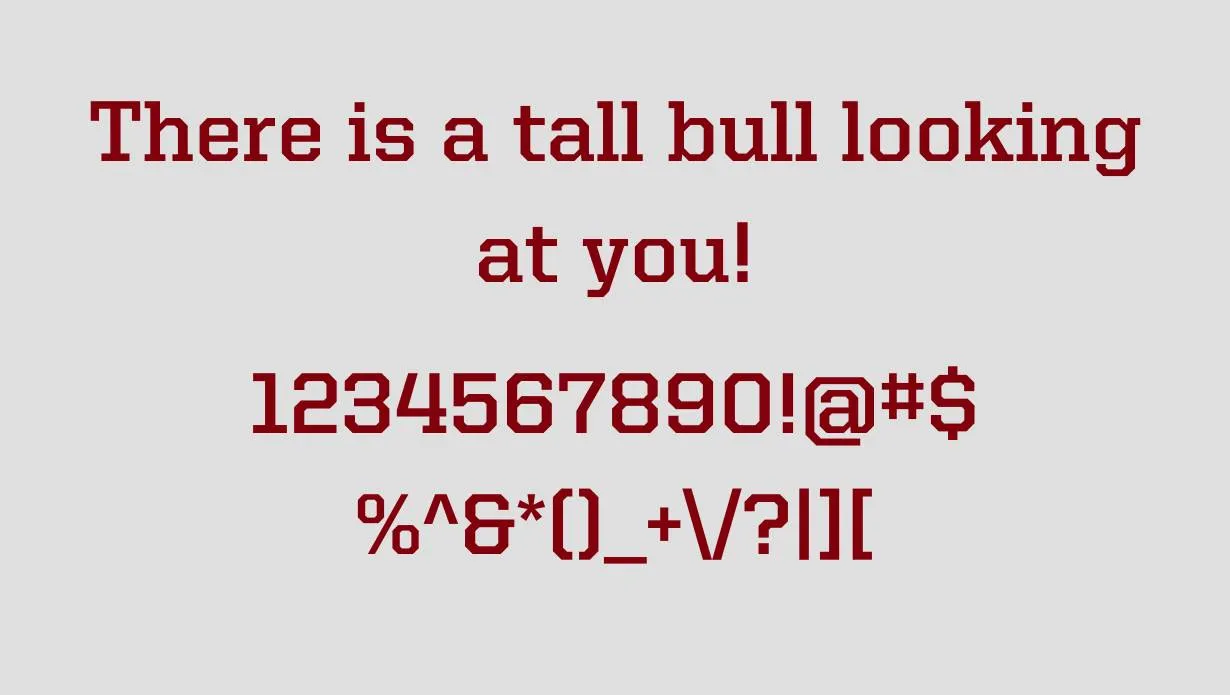
United Serif Font provides a cohesive and stable writing experience. Its letters exude strength and reliability, bringing a sense of unity to your words.
If you want your writing to convey a sense of togetherness and dependability, United Serif Font could be the ideal selection. It’s like building a strong foundation for your words, where each character stands firm, creating a sense of order and structure.